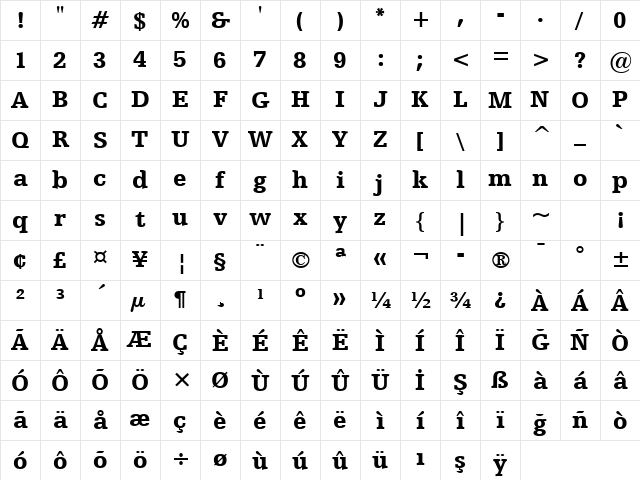
HumstSlab712 Blk BT Black
HumstSlab712 Blk BT Black Family
Complete HumstSlab712 Blk BT Black glyph index. Displaying only characters natively supported by HumstSlab712 Blk BT Black font.
Design Context for HumstSlab712 Blk BT
HumstSlab712 Blk BT features prominent, blocky serifs that give it a confident, grounded presence - equally at home in editorial settings and bold branding work.
Pro Tip: Use HumstSlab712 Blk BT for headlines and subheadings where its slab serifs can make an impression. It also holds up well in mid-size body copy thanks to its sturdy construction.